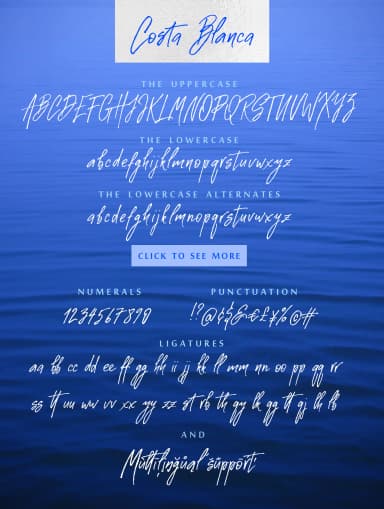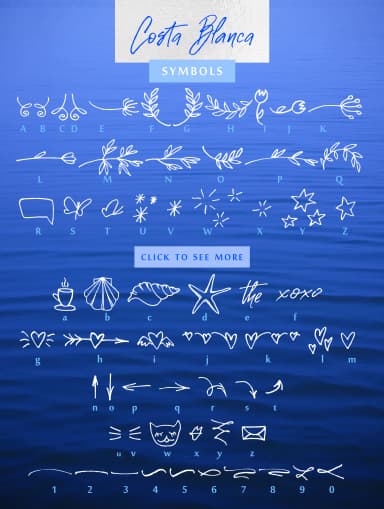
Costa Blanca by Iradvilyuk is a delicate hand-lettered script that brings authentic, personal character to creative projects. This gently flowing typeface captures the intimate quality of genuine handwriting, making it ideal for applications where a human touch matters and elegance meets accessibility. The font truly shines in wedding invitation suites, where its refined delicacy adds a personal dimension to ceremony stationery and thank-you cards. It works beautifully for custom product labeling on artisan goods, think handmade cosmetics, small-batch tea packaging, candle labels, or boutique jewelry branding. Content creators and designers favor Costa Blanca for Instagram graphics and Pinterest pins that demand a softer, more approachable aesthetic. The font also excels in greeting card designs, DIY craft projects, and hand-lettered signage where warmth and individuality are valued over corporate polish. With its thoughtfully designed letterforms, Costa Blanca includes symbol characters alongside its script letters, expanding creative possibilities for mixed-media designs. Whether you're developing a feminine brand identity, creating personalized journals, or designing hand-lettered announcements with character, this typeface delivers both elegance and approachability in equal measure. Get Costa Blanca on Creative Fabrica and add a touch of handwritten warmth to your next project.
- Elegant, Flowing, Costa Blanca Script
Costa Blanca Font is a script font that shines as a display or heading face. Pair it with a clean sans-serif or serif font for body text β the contrast creates a clear hierarchy while the two styles stay balanced and easy to read.
Costa Blanca Font
by Iradvilyuk